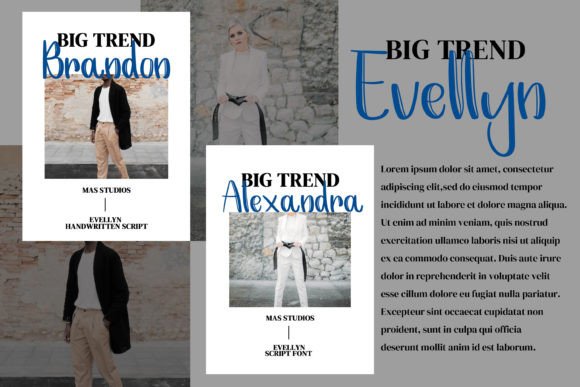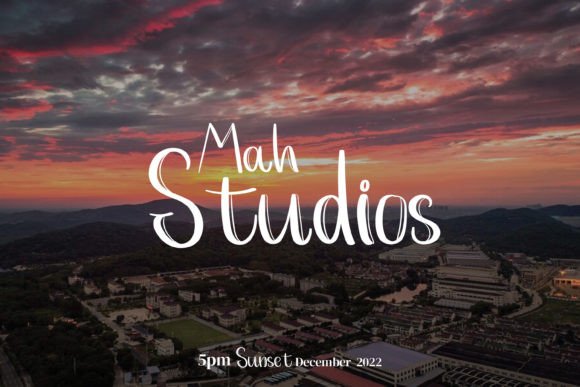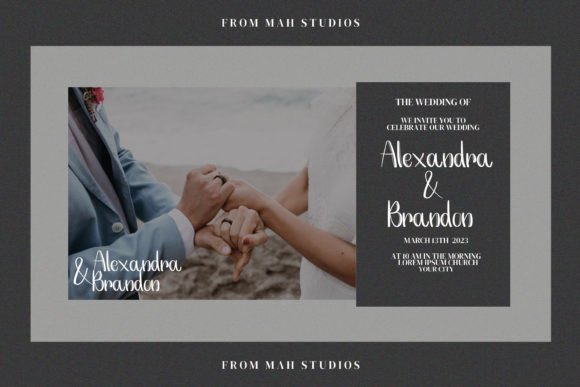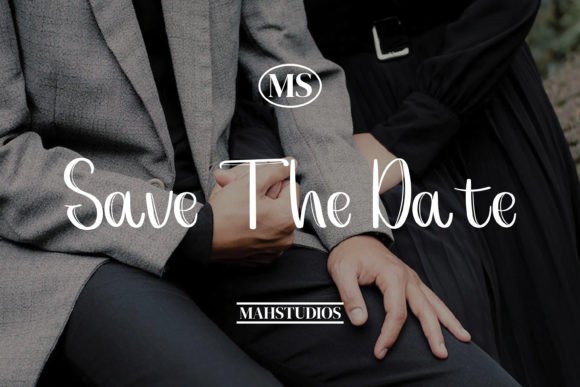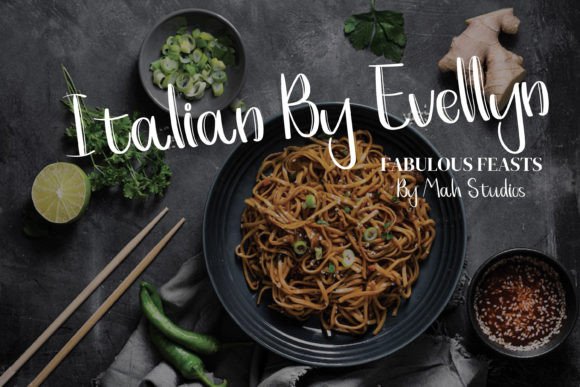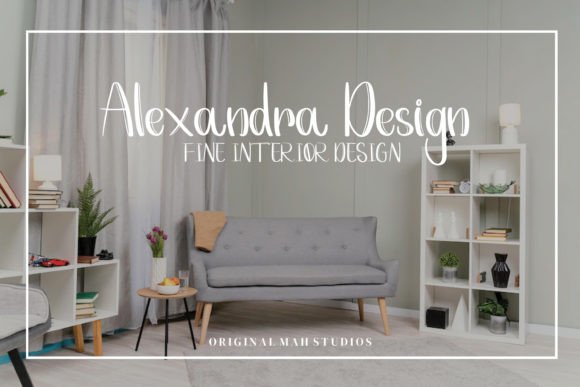
Evellyn Font: The Perfect Handwritten Font for Personalized Designs
Are you looking for a font that adds a touch of personality to your designs? Look no further than Evellyn Font! Evellyn is a fun and unique handwritten font that looks beautiful on a variety of designs requiring a personalized style. From wedding invitations to thank you cards, greeting cards, logos, and more, Evellyn Font is the perfect choice for designers and crafters who want to add a special touch to their work.
What Makes Evellyn Font So Special?
Evellyn Font is a carefully crafted handwritten font that is designed to bring a sense of warmth and personality to your designs. Its unique and fun style makes it perfect for a wide range of projects, from formal events like weddings and baby showers to more casual designs like greeting cards and social media graphics.
One of the things that sets Evellyn Font apart is its versatility. It can be used in a variety of contexts, from large headings to small body text, and it looks great in both digital and print formats. Whether you’re designing a logo, a brochure, or a social media post, Evellyn Font is a great choice.
Characteristics of Evellyn Font
So, what makes Evellyn Font so special? Here are a few of its key characteristics:
- Handwritten style: Evellyn Font has a beautiful, handwritten style that gives it a personal and unique feel.
- Unique lettering: Each letter in Evellyn Font has been carefully crafted to be distinct and recognizable, making it easy to read and understand.
- Fun and playful: Evellyn Font has a fun and playful vibe that’s perfect for designs that need a little extra personality.
- Versatile: Evellyn Font can be used in a wide range of contexts, from large headings to small body text.
Uses for Evellyn Font
Evellyn Font is a versatile font that can be used in a wide range of projects. Here are a few ideas to get you started:
- Wedding invitations: Evellyn Font is a beautiful choice for wedding invitations, adding a touch of romance and personality to your design.
- Thank you cards: Show your appreciation with a personalized thank you card featuring Evellyn Font.
- Greeting cards: Evellyn Font is perfect for birthday cards, holiday cards, and other types of greeting cards.
- Logos: Use Evellyn Font to create a unique and memorable logo for your business or brand.
- Social media graphics: Add a personal touch to your social media graphics with Evellyn Font.
Tips for Using Evellyn Font
Here are a few tips for getting the most out of Evellyn Font:
- Experiment with different sizes: Evellyn Font looks great in a variety of sizes, from large headings to small body text.
- Pair it with other fonts: Evellyn Font pairs well with a wide range of other fonts, so don’t be afraid to experiment with different combinations.
- Use it consistently: To create a cohesive look, use Evellyn Font consistently throughout your design.
Evellyn Font is a unique and versatile handwritten font that’s perfect for designers and crafters who want to add a personal touch to their work. With its fun and playful style, Evellyn Font is sure to bring a smile to your readers’ faces. Whether you’re designing a wedding invitation, a thank you card, or a social media graphic, Evellyn Font is a great choice. So why wait? Download Evellyn Font today and start creating your own personalized designs!